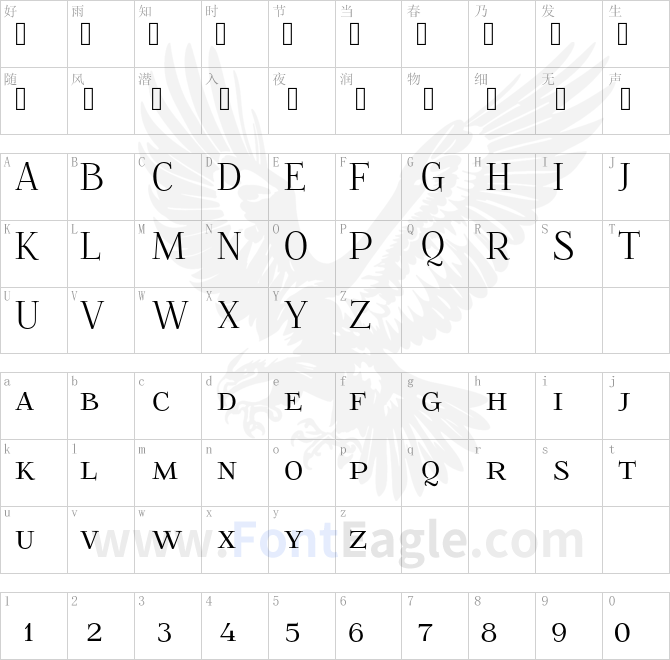
- Font name:FoglihtenPCS
- Font Subfamily:Petitecaps
- Font Subfamily ID:FontForge : Foglihten Petitecaps : 7-6-2011
- Font Full Name:Foglihten Petitecaps
- Font Version:Version 0.68
- Postscript:FoglihtenPCS-Petitecaps